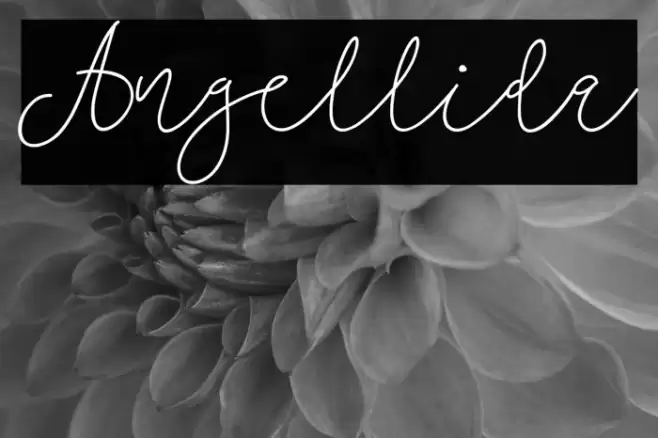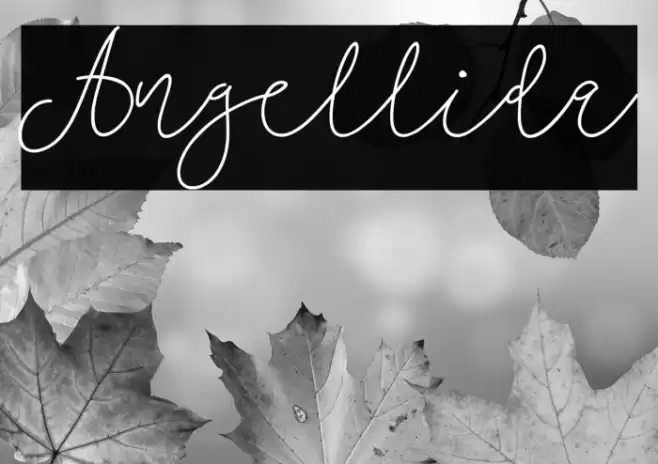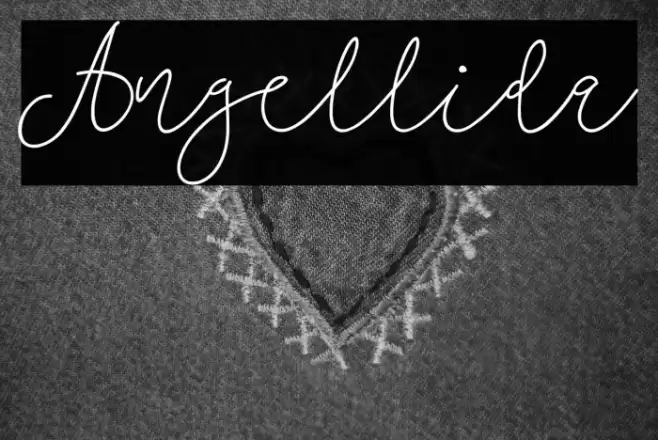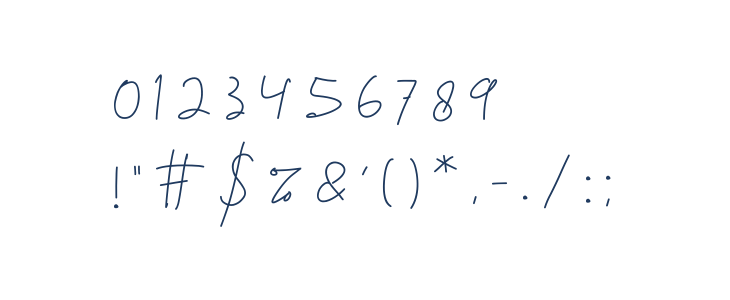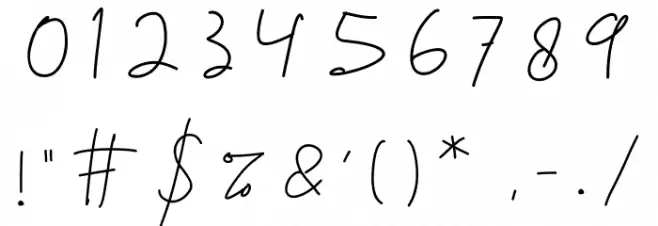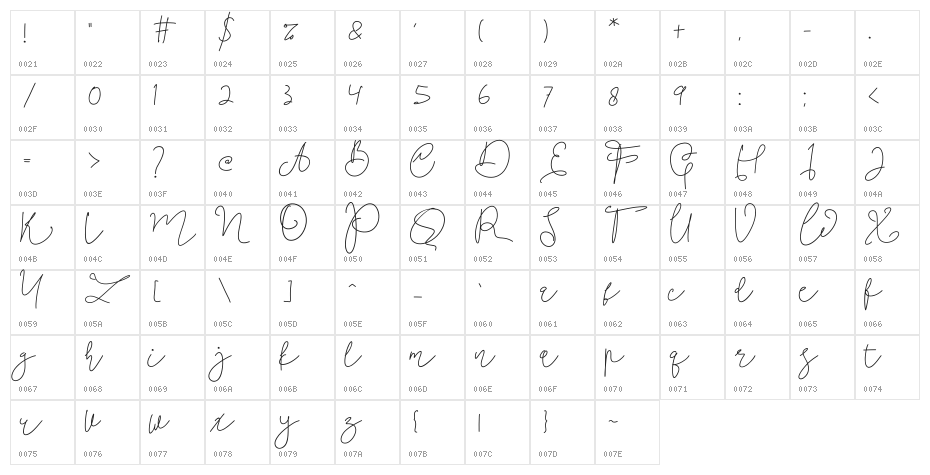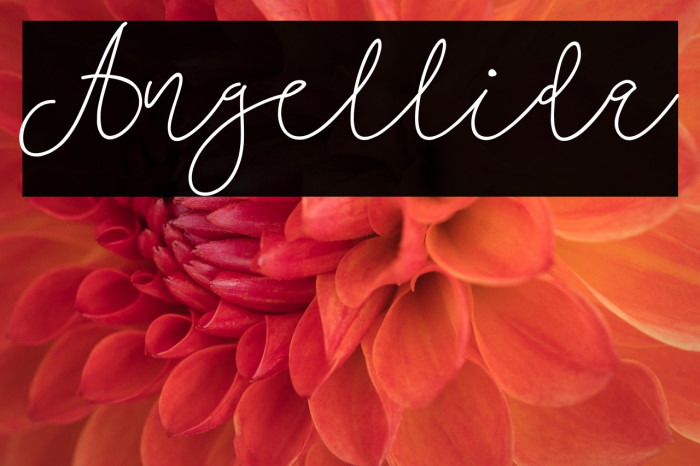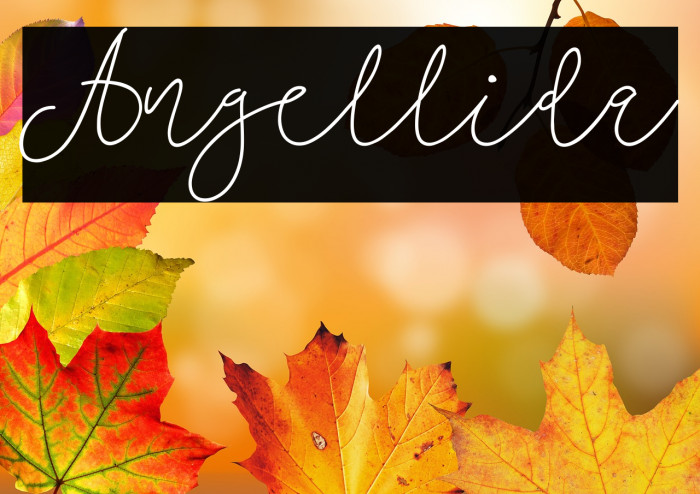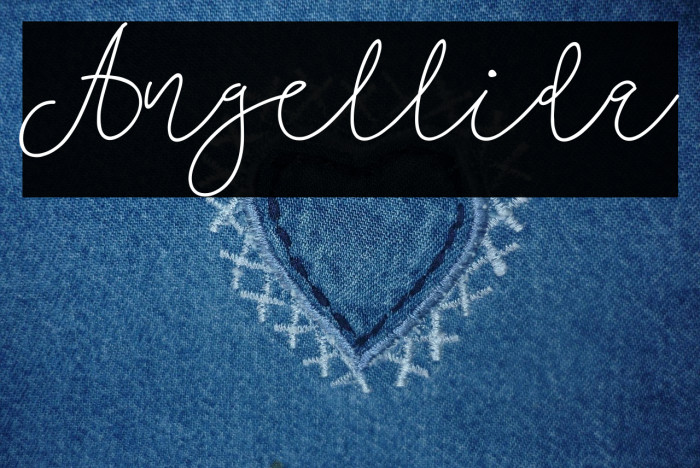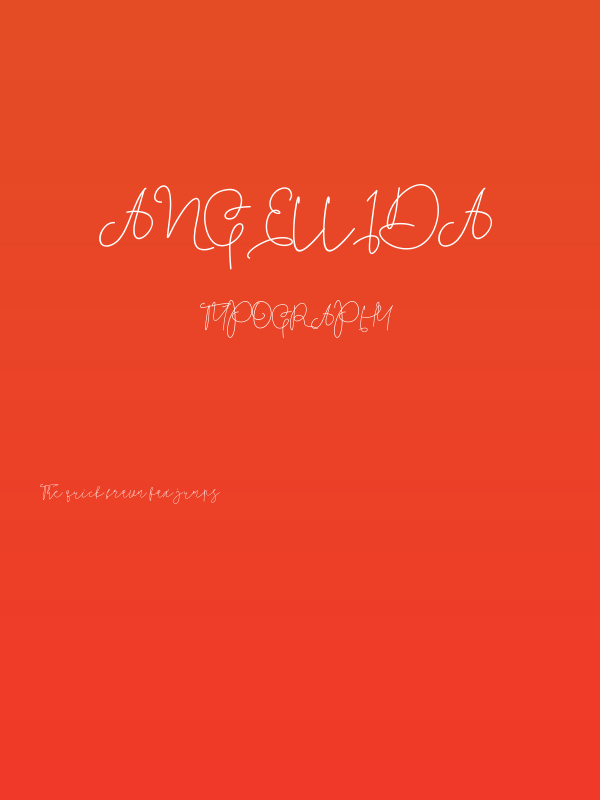
Angellida Font
Angellida Description
This font exudes a charming and whimsical handwritten style, characterized by its fluid and continuous strokes that mimic the natural flow of cursive handwriting. The letters are elegantly connected, creating a sense of movement and grace. The uppercase letters are slightly more elaborate, with playful loops and swirls, while the lowercase letters maintain a consistent and smooth appearance. The numerals and special characters are crafted with the same attention to detail, ensuring a cohesive look across all glyphs. The overall design is delicate yet legible, making it suitable for a variety of creative applications.
A whimsical and elegant handwritten font with fluid, connected strokes from Uncategorized fonts.
- Proposed Projects: Ideal for wedding invitations, greeting cards, personal branding, and artistic projects that require a personal touch.
- Use Case: Logos, Invitations, Artistic projects